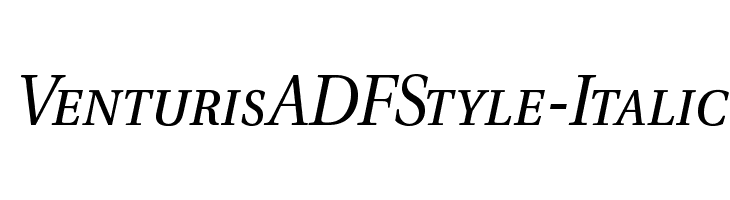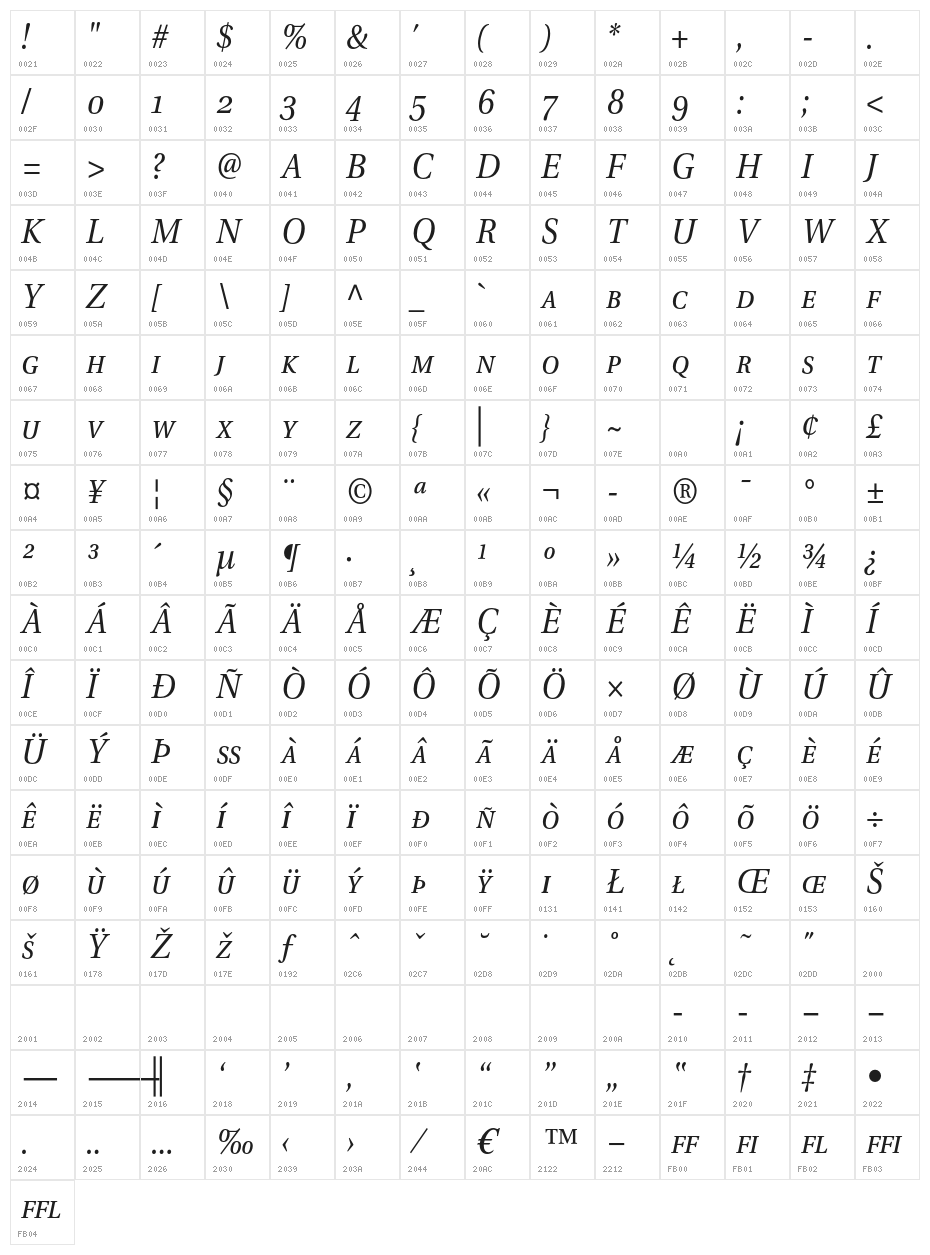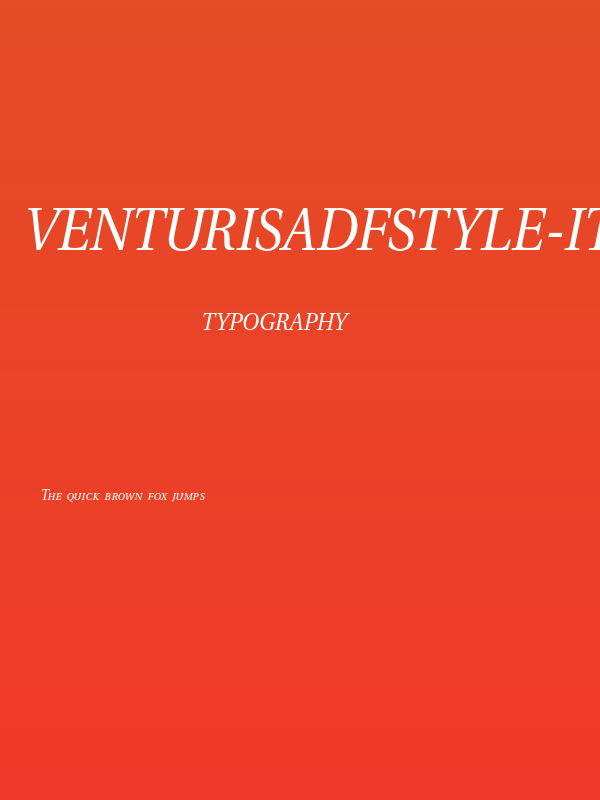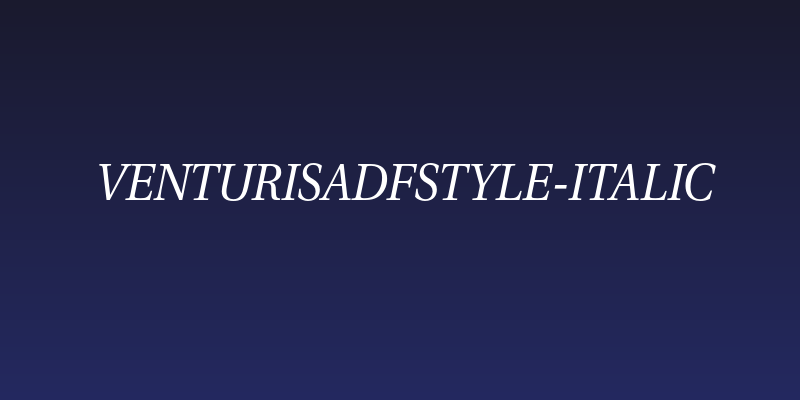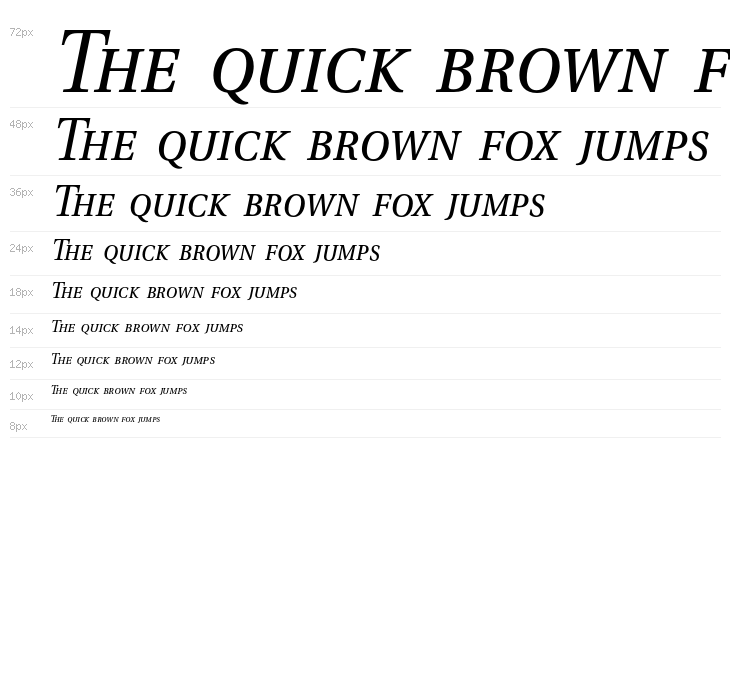
VenturisADFStyle-Italic Font
VenturisADFStyle-Italic Description
This elegant serif font features a classic italic style, characterized by its smooth, flowing lines and slight slant to the right. The uppercase letters are well-proportioned, with a refined and sophisticated appearance. The lowercase letters maintain a consistent style, offering a harmonious blend of curves and straight lines. The numerals are clear and distinct, ensuring readability. Special characters are thoughtfully designed, complementing the overall aesthetic. This font exudes a timeless quality, suitable for a variety of formal and professional applications.
| Proposed Projects | Ideal for use in formal invitations, elegant branding, editorial design, and high-end product packaging. |